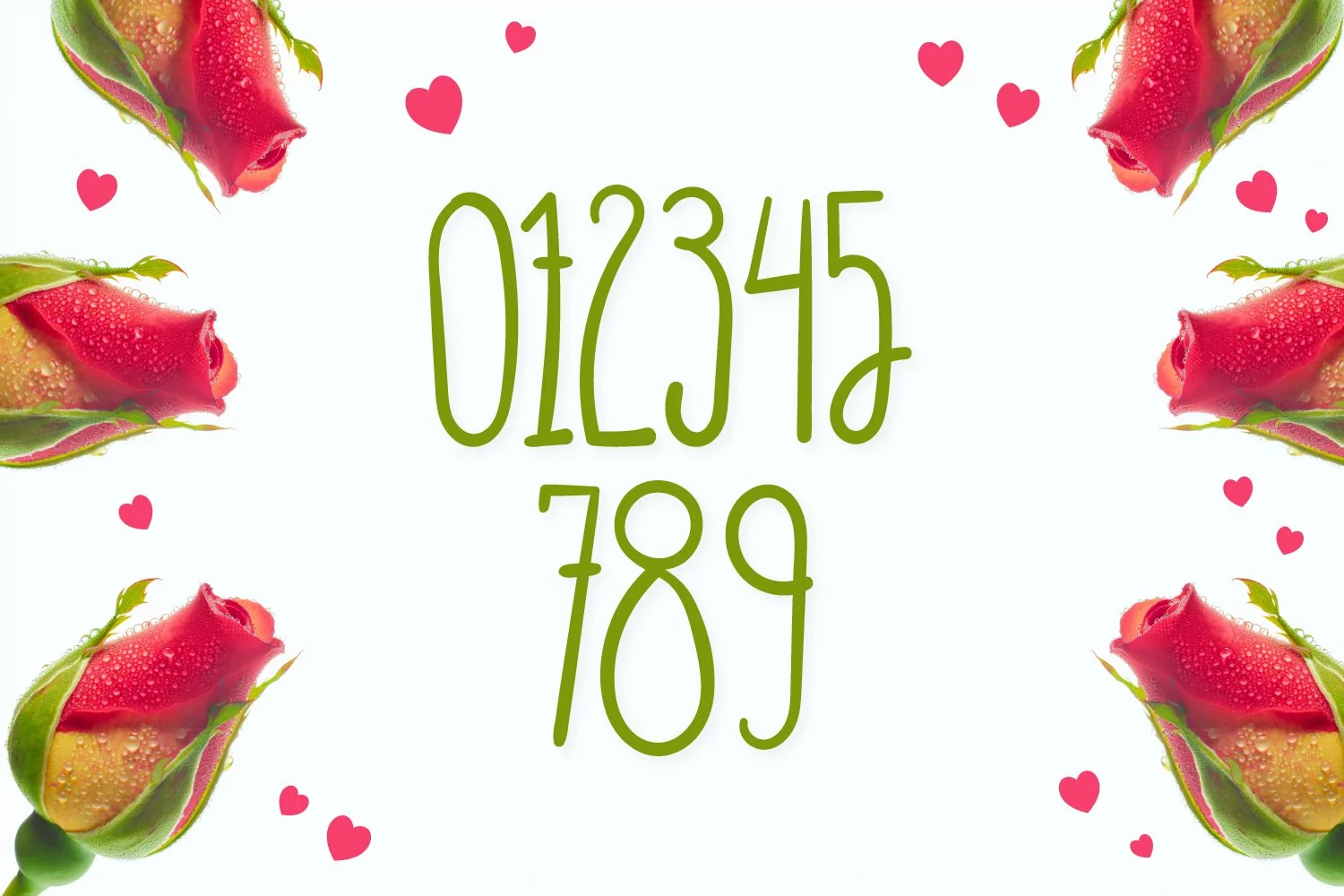
A Rosebud - A Cute Hand Drawn Font You can create lots of things using this font including logos, use in Cricut machines etc for your parties like birthdays, fun projects, and making monograms. This font is ready to help you in every situation.
This Font has Letters A-Z Only